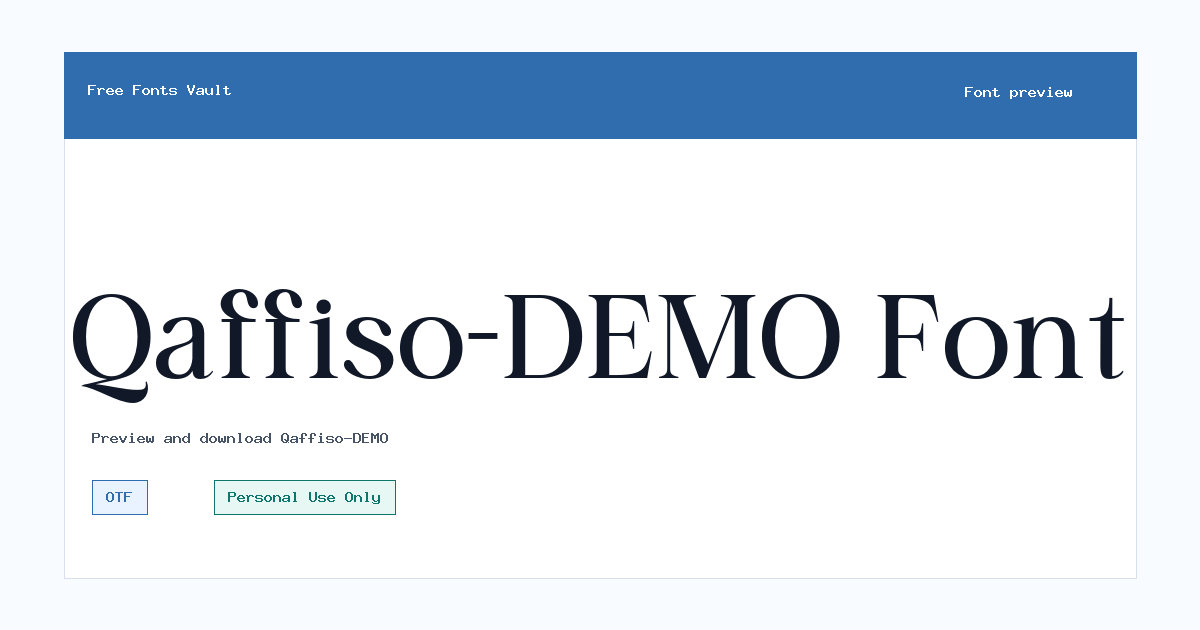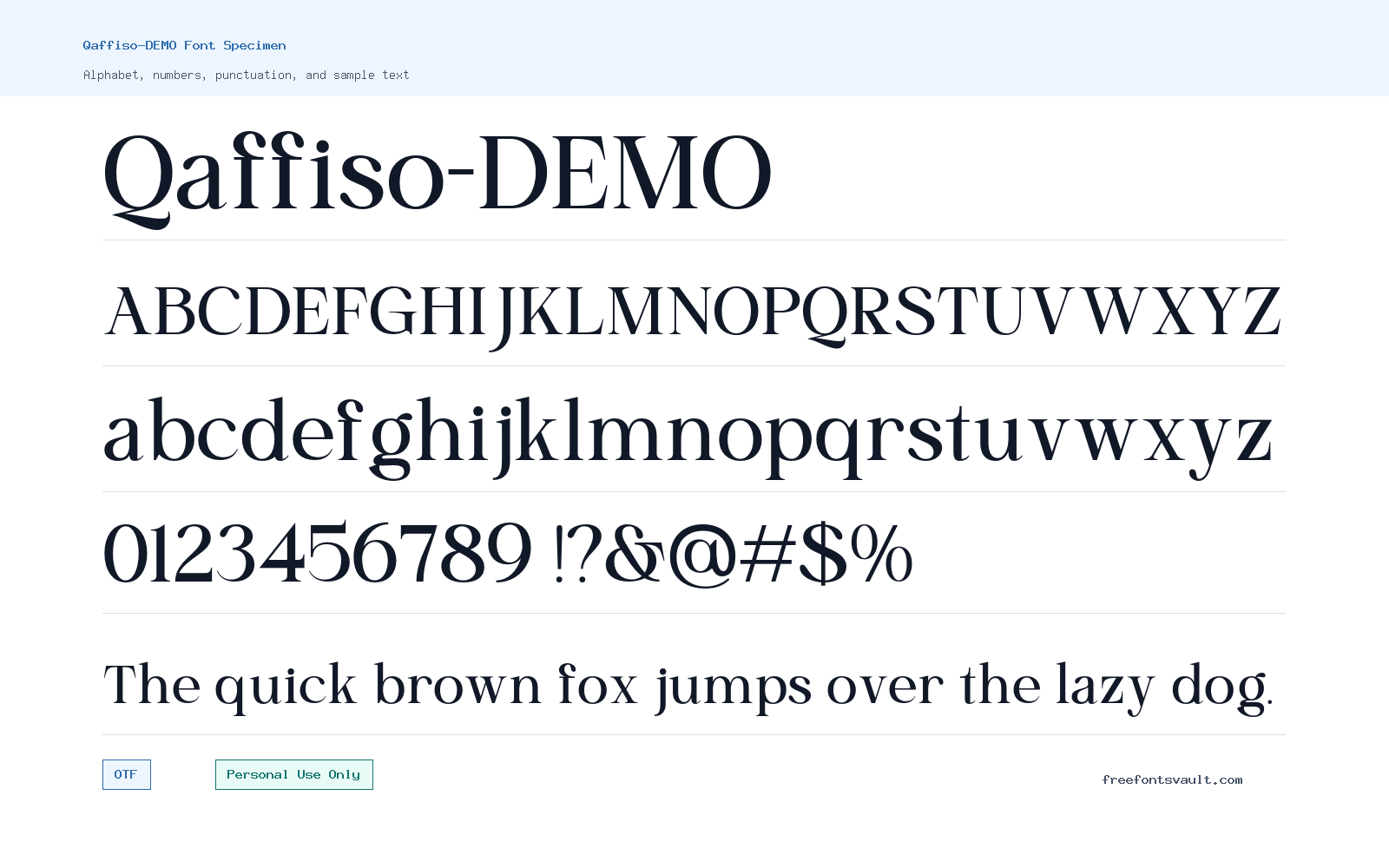
Qaffiso-DEMO
- Designer Bakhrudin Ja'far
Qaffiso-DEMO is a serif font for personal projects, saved as a regular OTF font file. It is a good font to test when you want a more refined serif look for short text, titles, and visual drafts, while keeping the license limit clearly in mind.
About Qaffiso-DEMO
Qaffiso-DEMO works best as a display-style serif rather than a font you choose automatically for long reading. Since the downloadable file is the regular weight, start by previewing it in headings, names, short quotes, invitations, labels, or social graphics. Serif fonts can bring structure and a polished tone to a layout, but the real test is always the exact words you plan to use. Try uppercase, lowercase, numbers, and punctuation in the preview before downloading so you can see whether the spacing and character shapes suit your design.
Use Qaffiso-DEMO with a simple supporting font if your layout needs more than a few words. A clean sans serif can help keep body text readable while Qaffiso-DEMO handles the main title or accent line. Avoid forcing it into small paragraphs, dense menus, or narrow mobile layouts until you have checked the preview at the size you need. The file format is OTF, which is widely used in desktop design apps and many font managers, but you should still test it in your own software before starting a larger personal project.
- Personal invitations, mood boards, quote graphics, and title concepts
- Short headings paired with a clean, readable body font
The designer is listed as Bakhrudin Ja'far, with Roomspace Creative Lab linked as the designer website.
What kind of projects suit Qaffiso-DEMO?
It is best to try it in short personal-use designs such as titles, invitations, quotes, name layouts, and visual mockups. Use the preview to make sure the letters and spacing fit your text.
Who designed Qaffiso-DEMO?
The designer is listed as Bakhrudin Ja'far, and the designer website points to Roomspace Creative Lab.